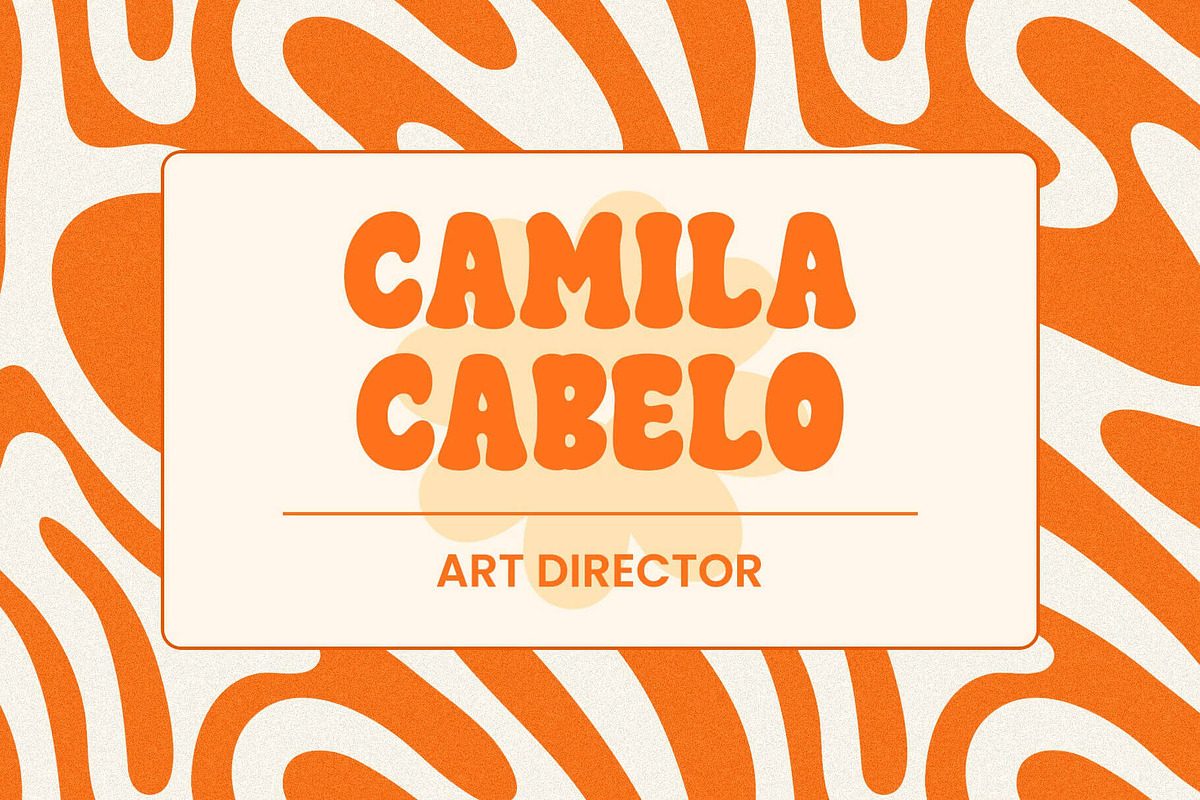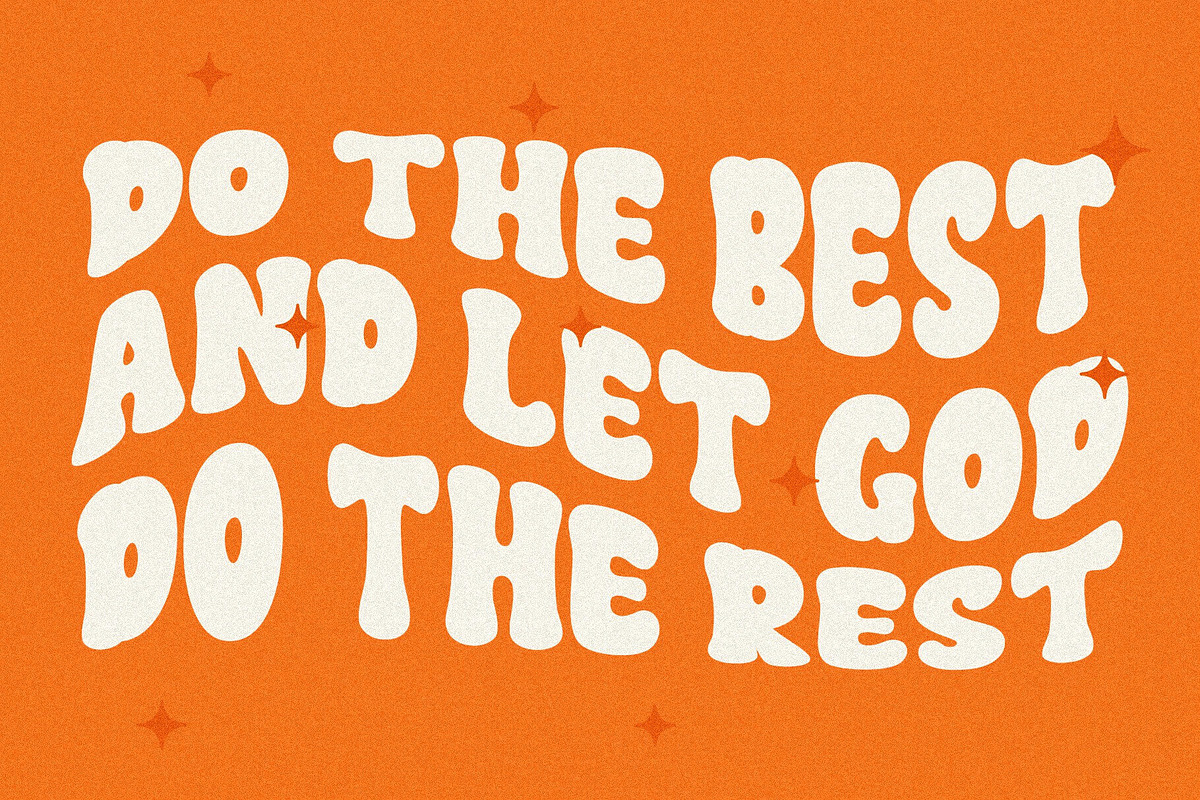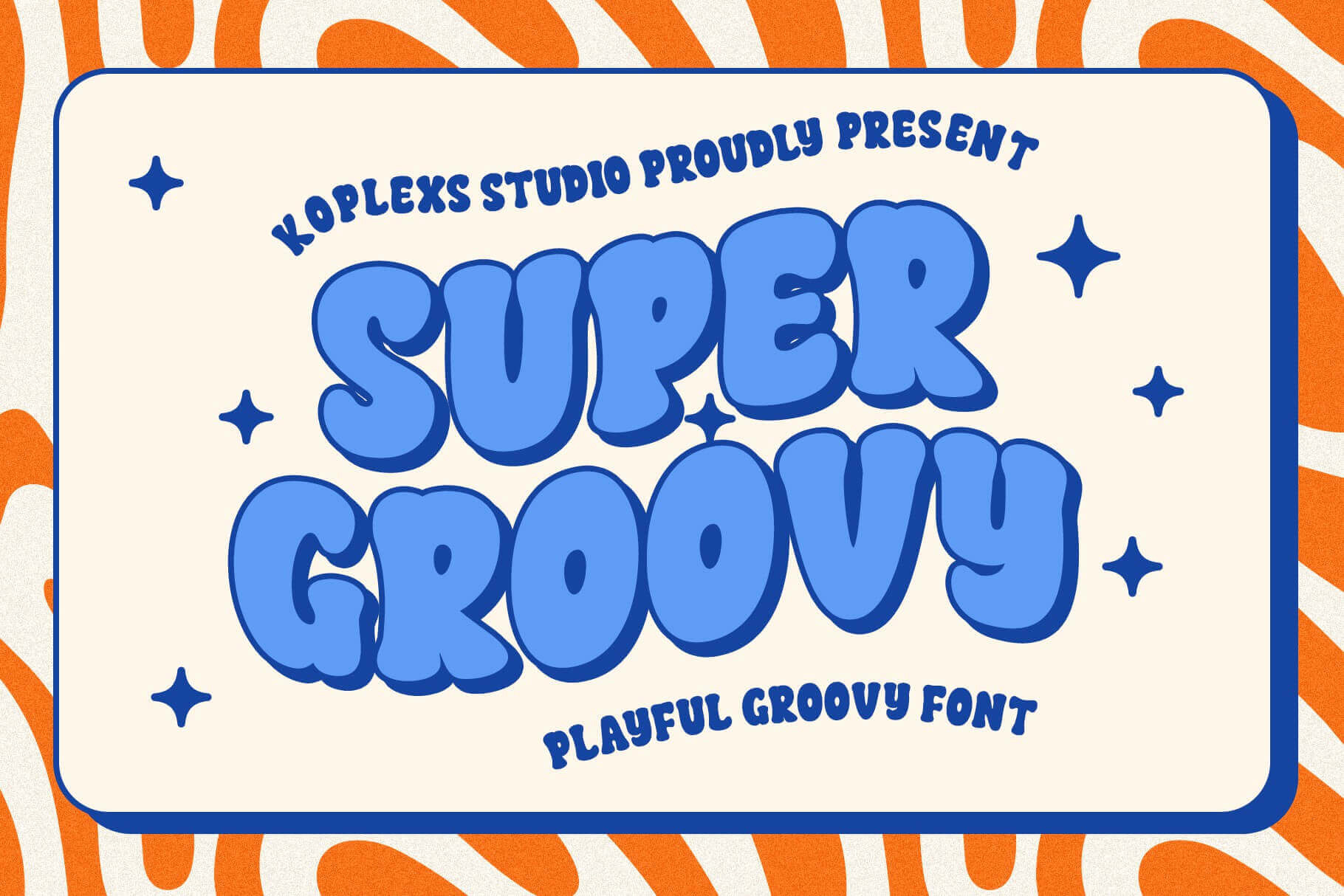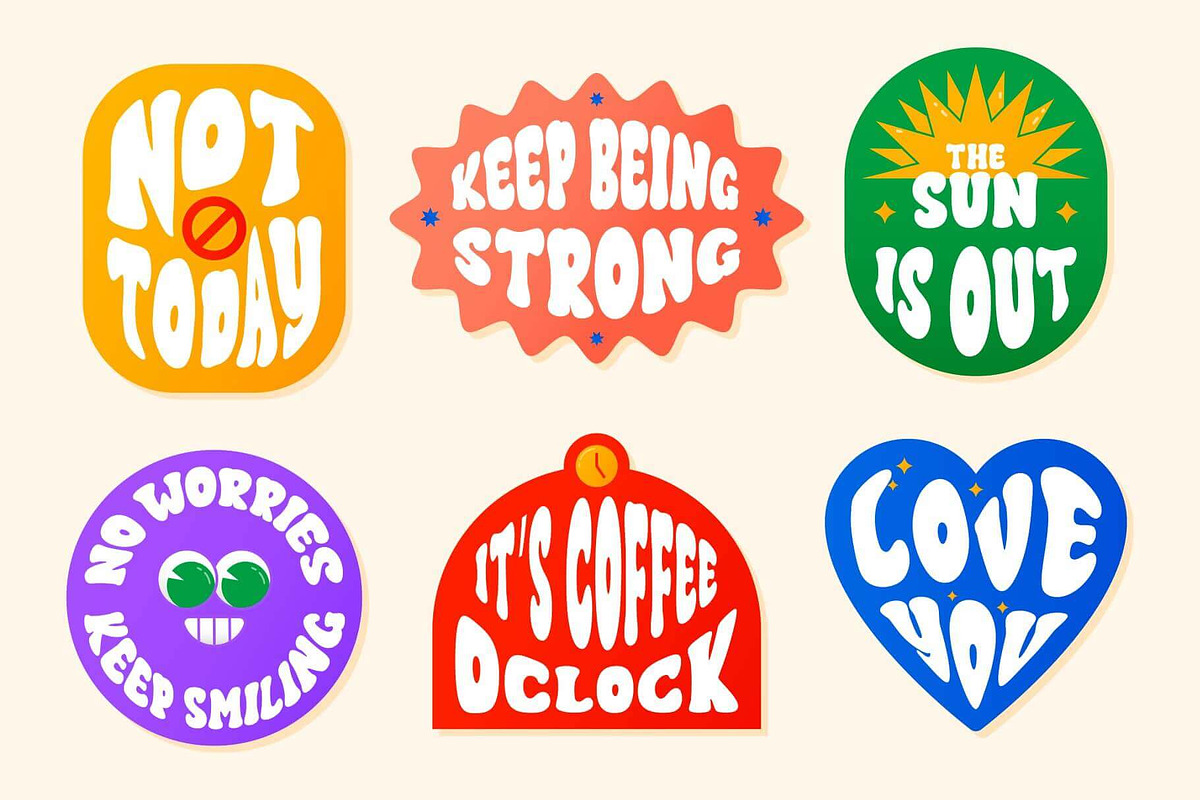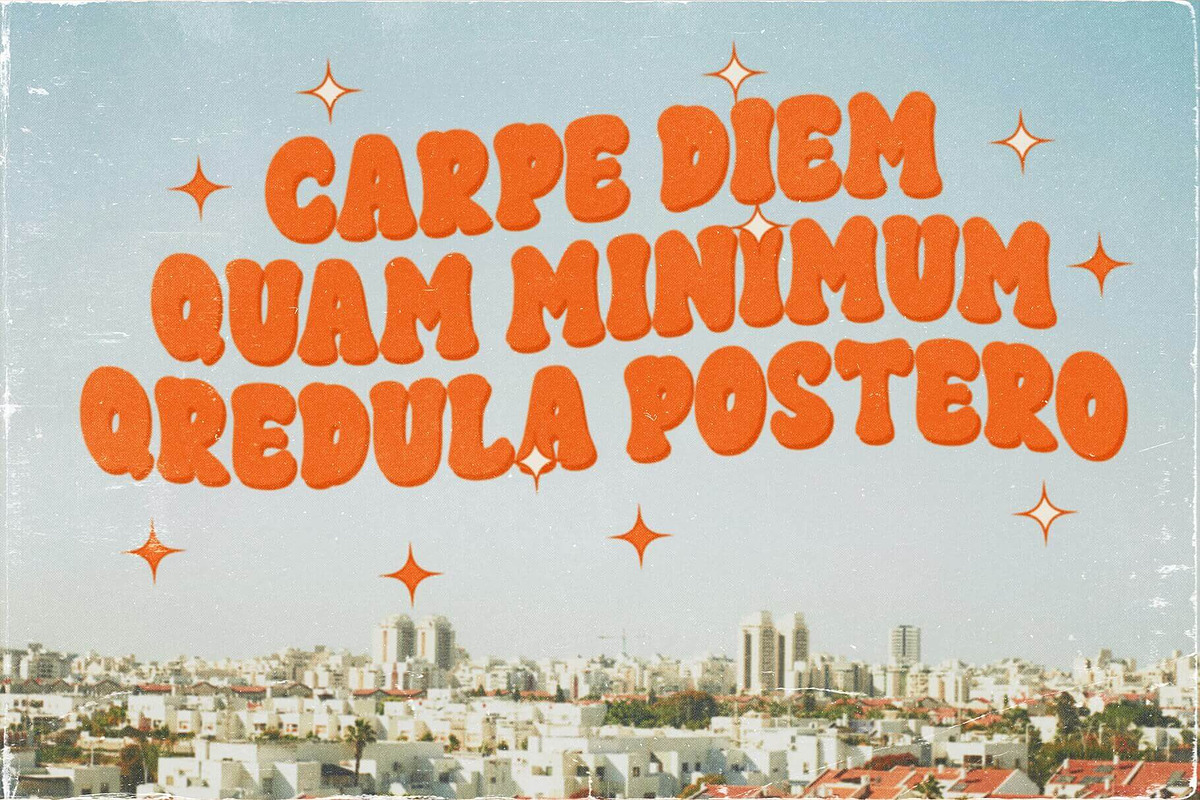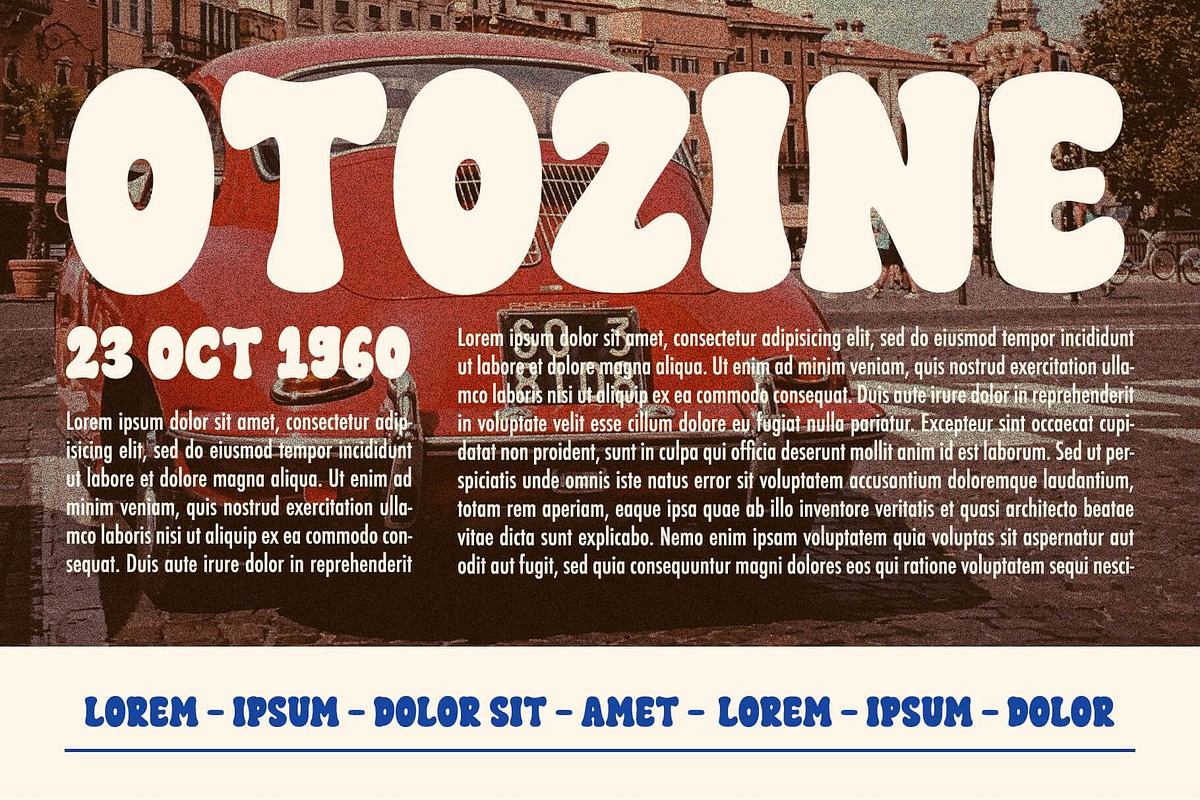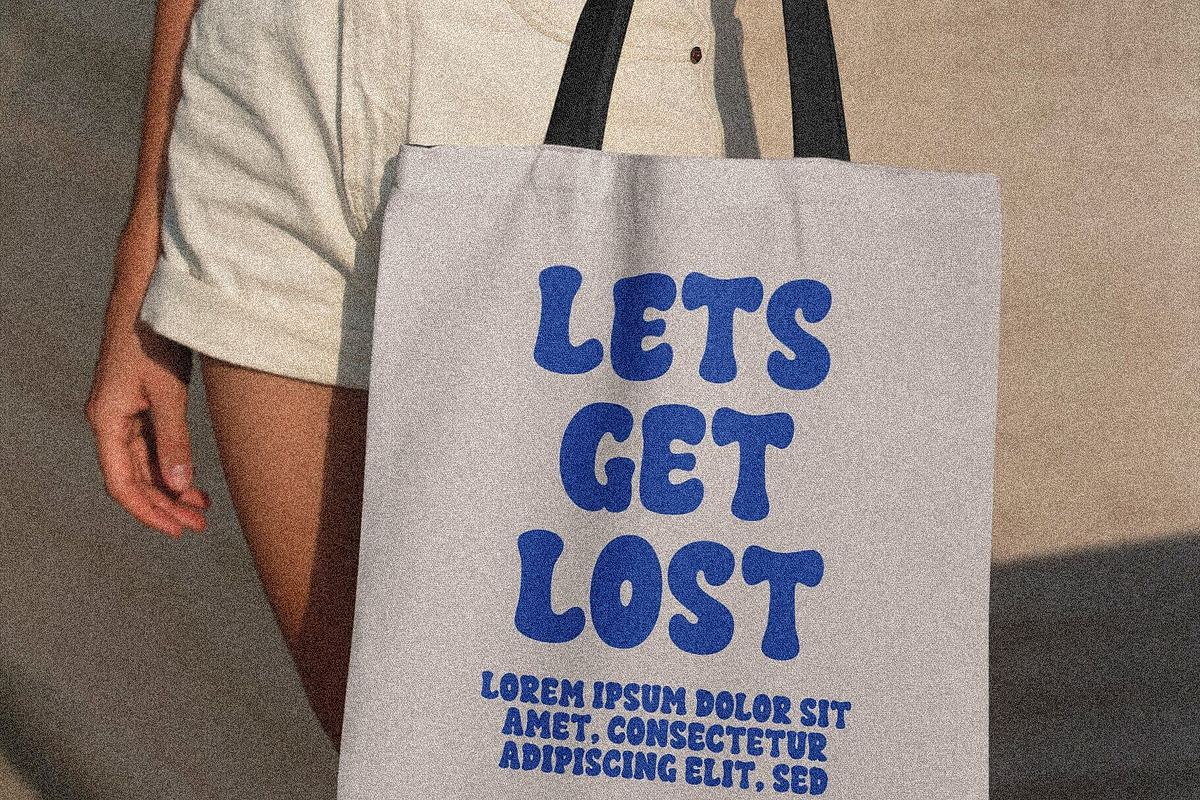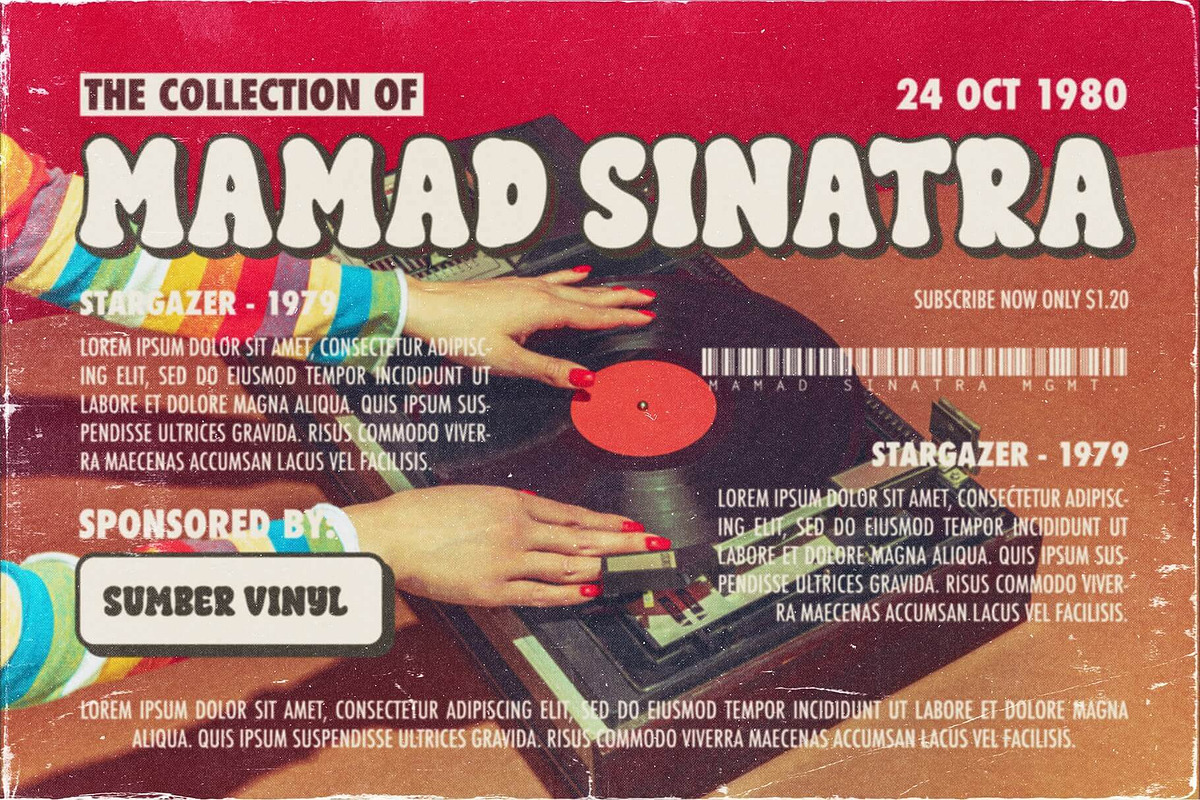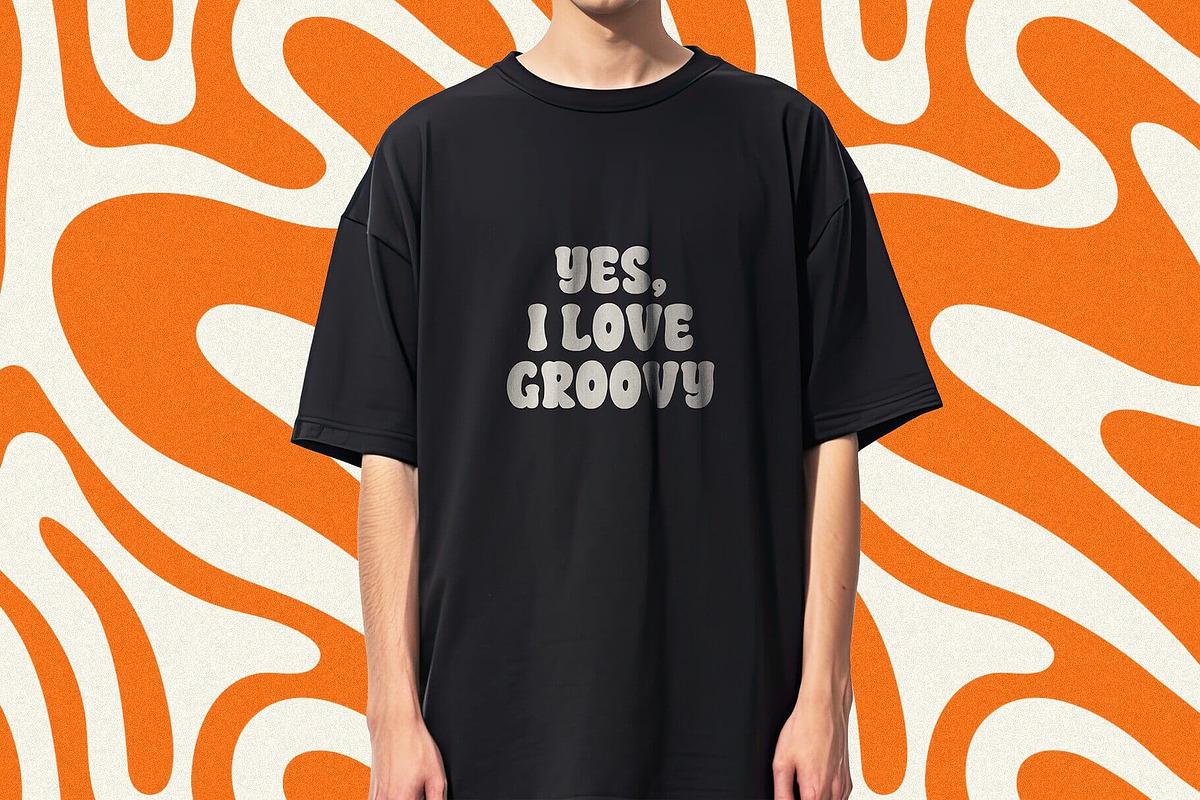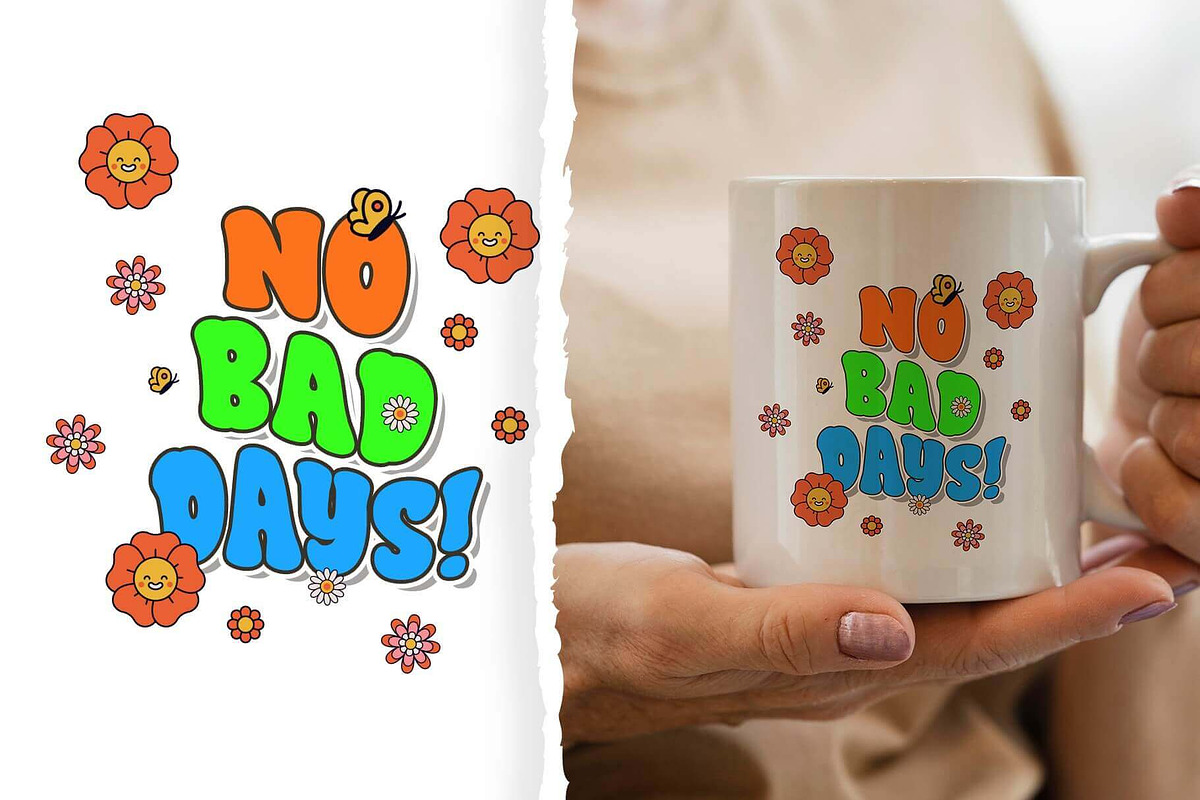
Super Groovy - Playful Retro Font
Super Groovy Font
Super Groovy - Playful Retro Font
Super Groovy - Playful Retro Font is a vibrant and nostalgic font that will transport you to the cheerful and carefree atmosphere of the 70s. This font embodies the essence of retro design with its bold and playful letterforms, reminiscent of disco parties and funky vibes. With its unique and eye-catching style.
Super Groovy - Playful Retro Font is Very suitable for Stickers, Mug Designs, Cutton Tote Bag, Packaging design, Cricut Project, headlines, brand identity, t shirt or apparel industry, posters, magazines, books, YouTube, Instagram, websites, or any of your creative design projects.